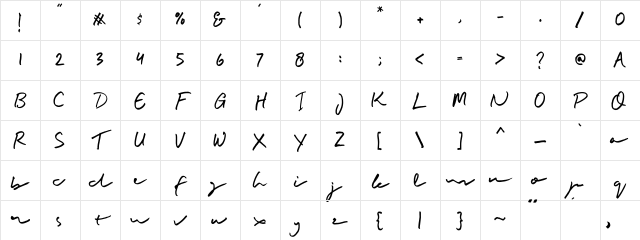
Buadly Signature is a composed and adaptable typeface that performs quietly and consistently across a wide range of design contexts.
Pro Tip: Use Buadly Signature in both headline and body roles to test its range before committing to a single application.